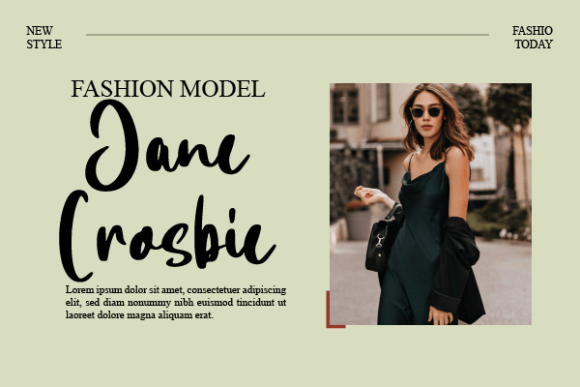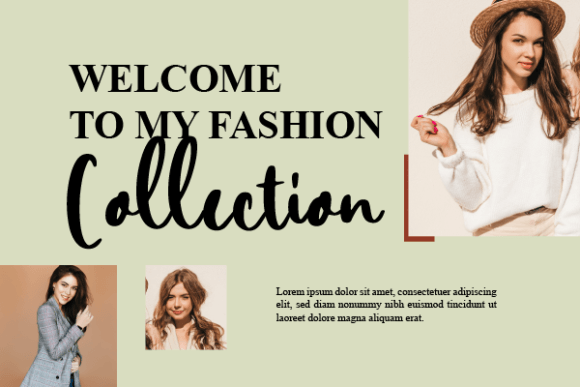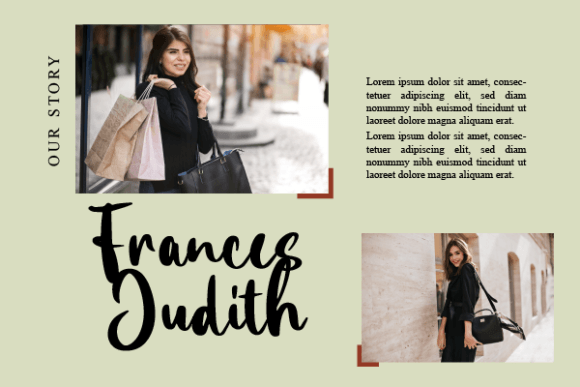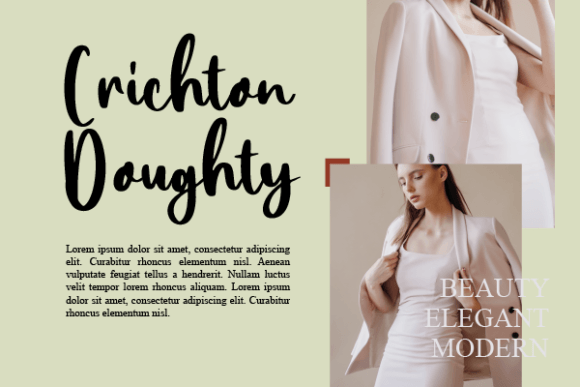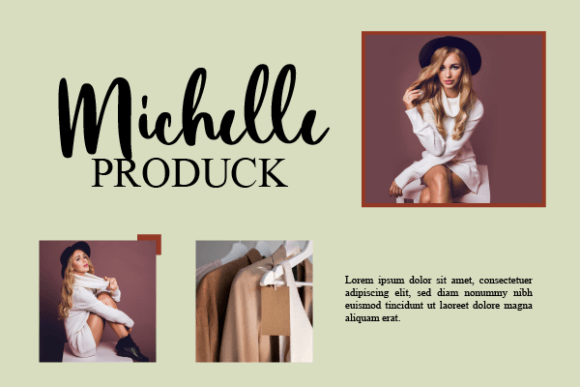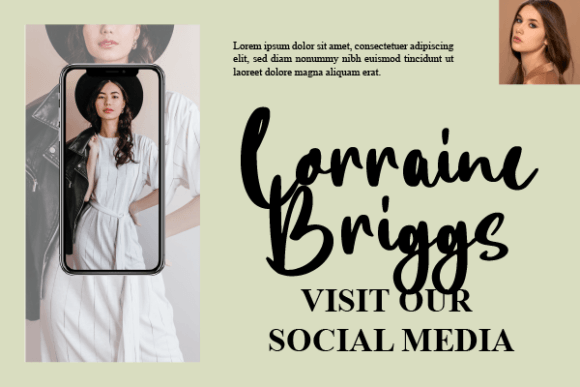
Introduction to Dempster Font
Dempster is a stylish and elegant script font that exudes elegance and class.
This font was particularly crafted for those who need a beautiful and refreshing look to their designs .
Key Features of Dempster Font
Why Choose Dempster Font?
Dempster Font offers exceptional quality and versatility, making it a valuable addition to your design toolkit. Whether you’re creating for personal projects or commercial use, Dempster Font delivers professional results.